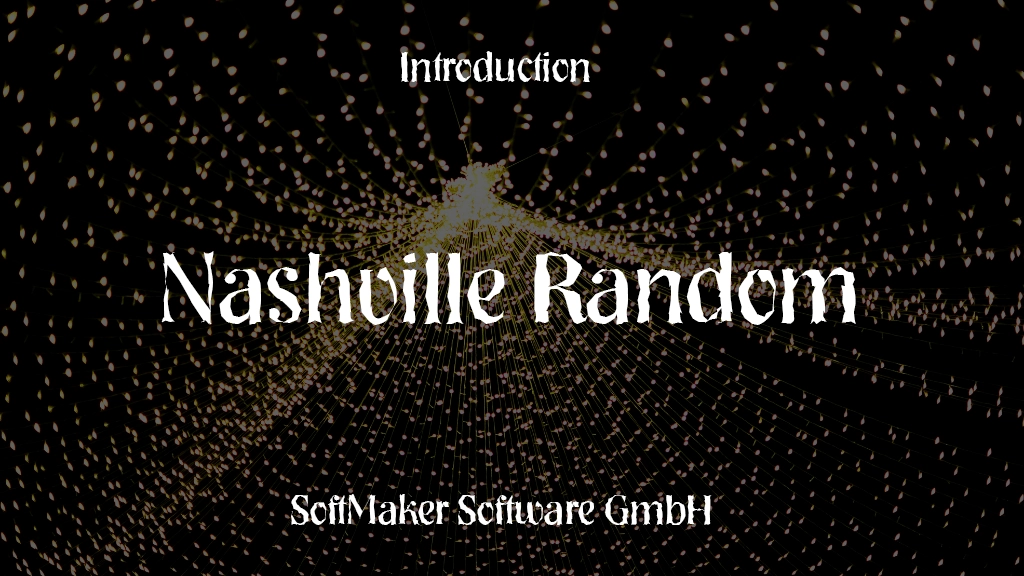
The Nashville Random font is a fun and playful font that is perfect for a variety of designs. It is a Regular font, meaning that it has a consistent thickness throughout. The font was designed by SoftMaker Software GmbH and is free to use for personal projects.